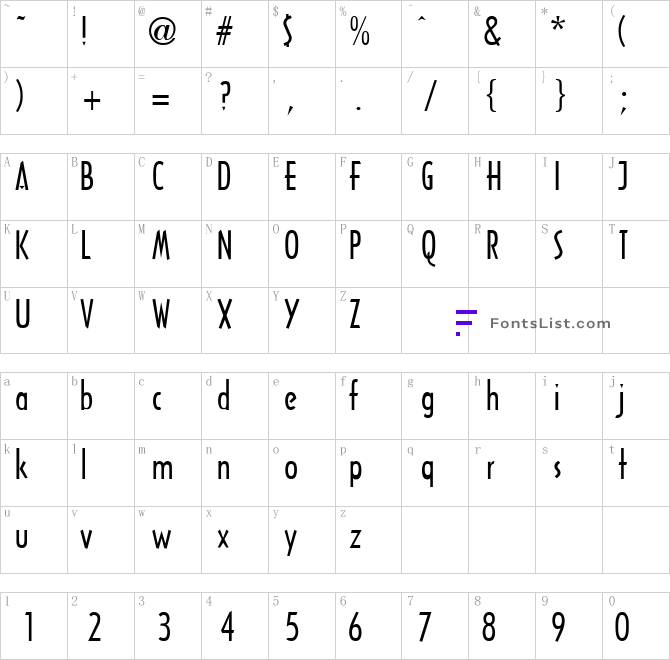
- Font Name:Arquitectura
Arquitectura-Regular.ttf is a very beautiful artistic font, Arquitectura-Regular.ttf is widely used in the design and printing of various books and pictures,Arquitectura-Regular.ttf has a strong visual impact,Arquitectura-Regular.ttf is a commonly used font in newspapers, magazines and books, and is used in posters, e-commerce Poster design, store design, logo design, font design and other fields.Arquitectura-Regular.